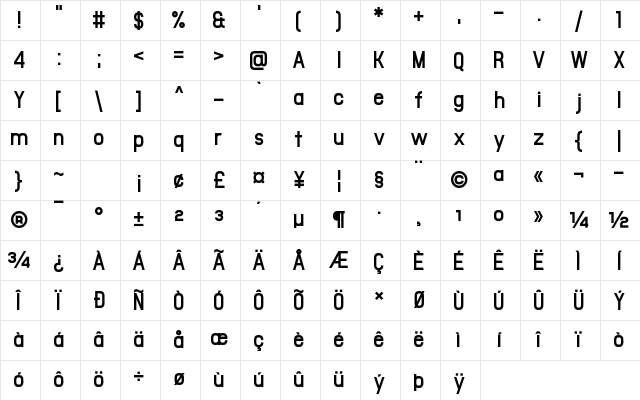
Office Square Regular
Design Context for Office Square
Office Square is a composed and adaptable typeface that performs quietly and consistently across a wide range of design contexts.
Pro Tip: Use Office Square in both headline and body roles to test its range before committing to a single application.